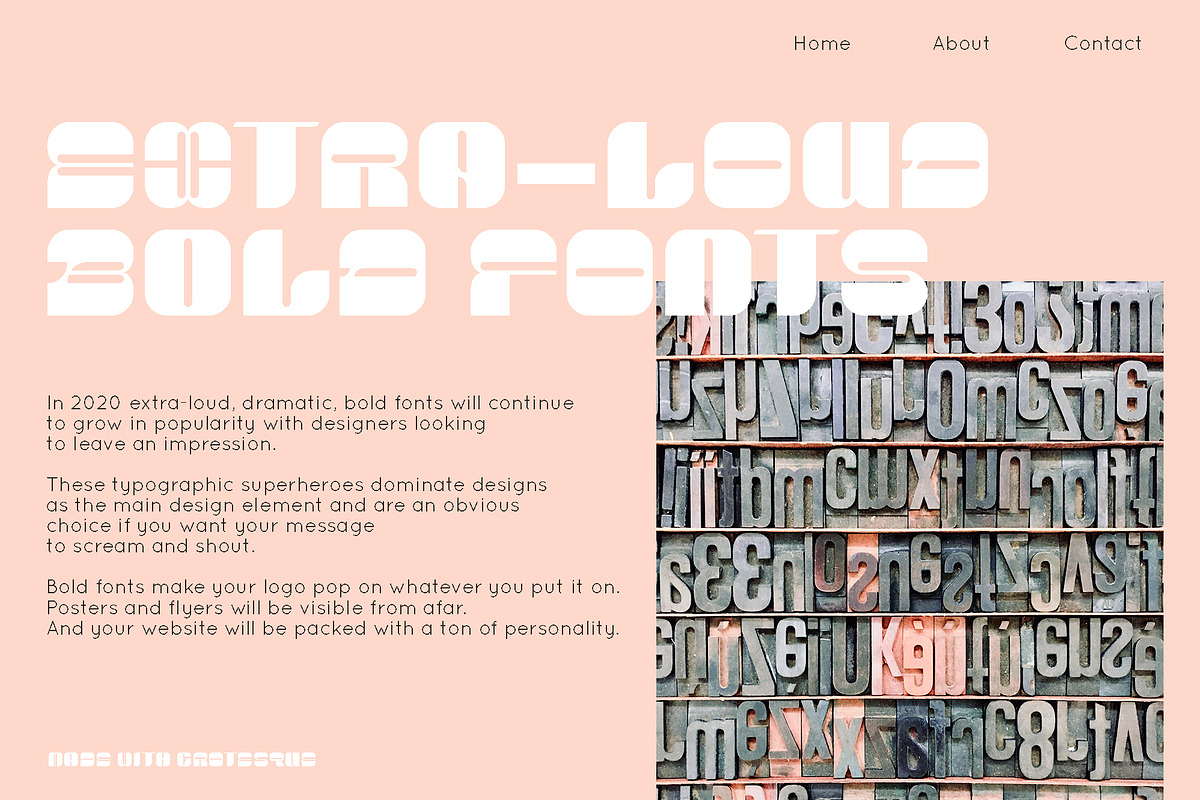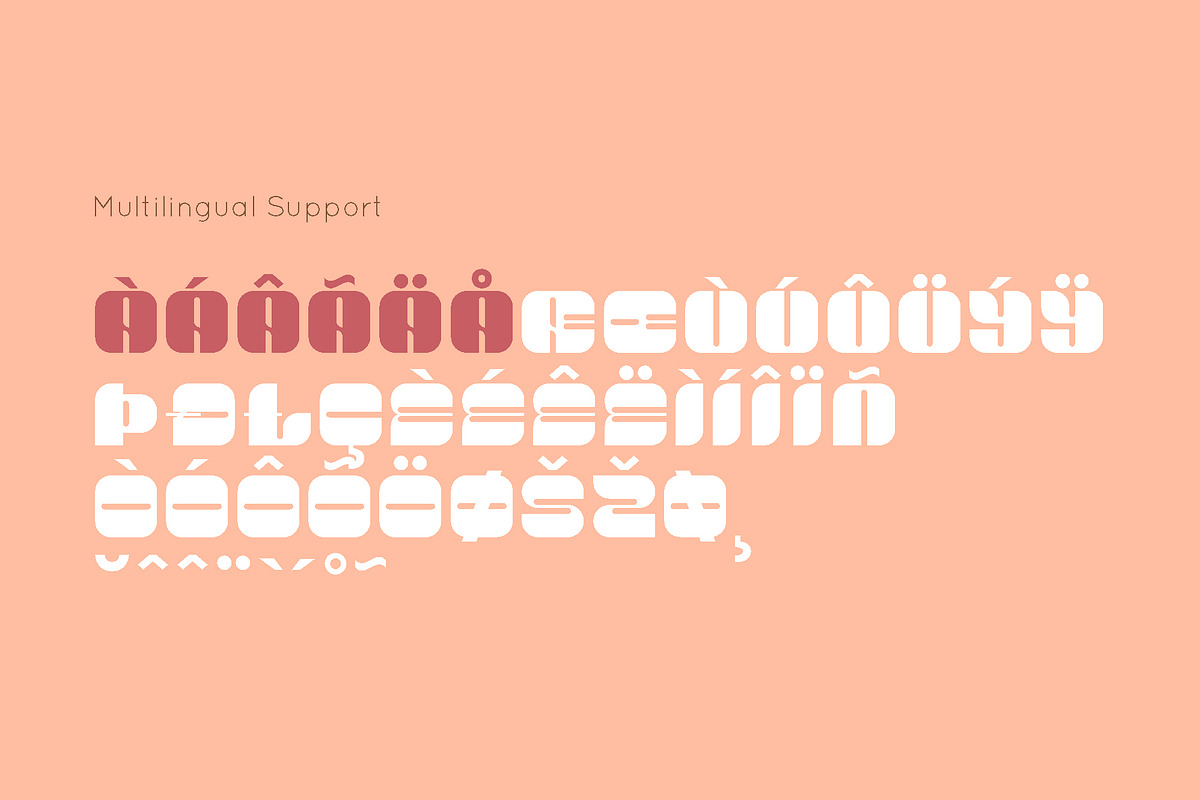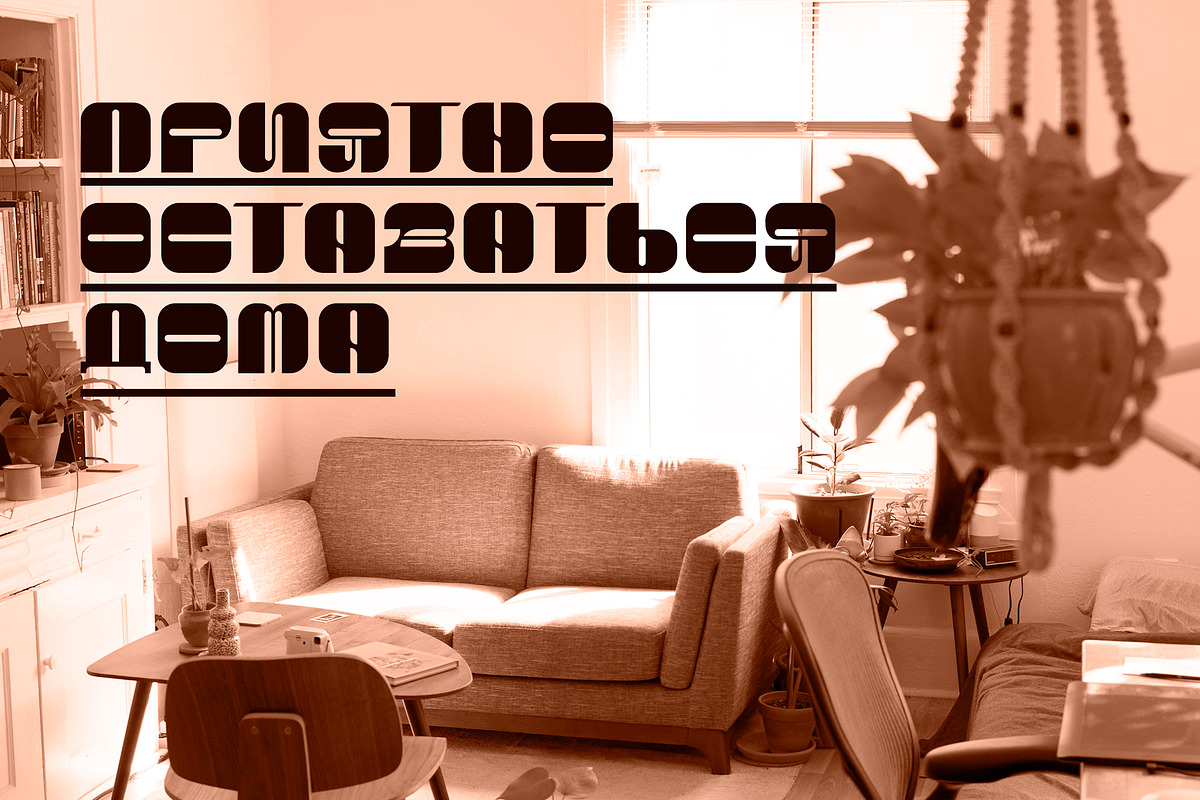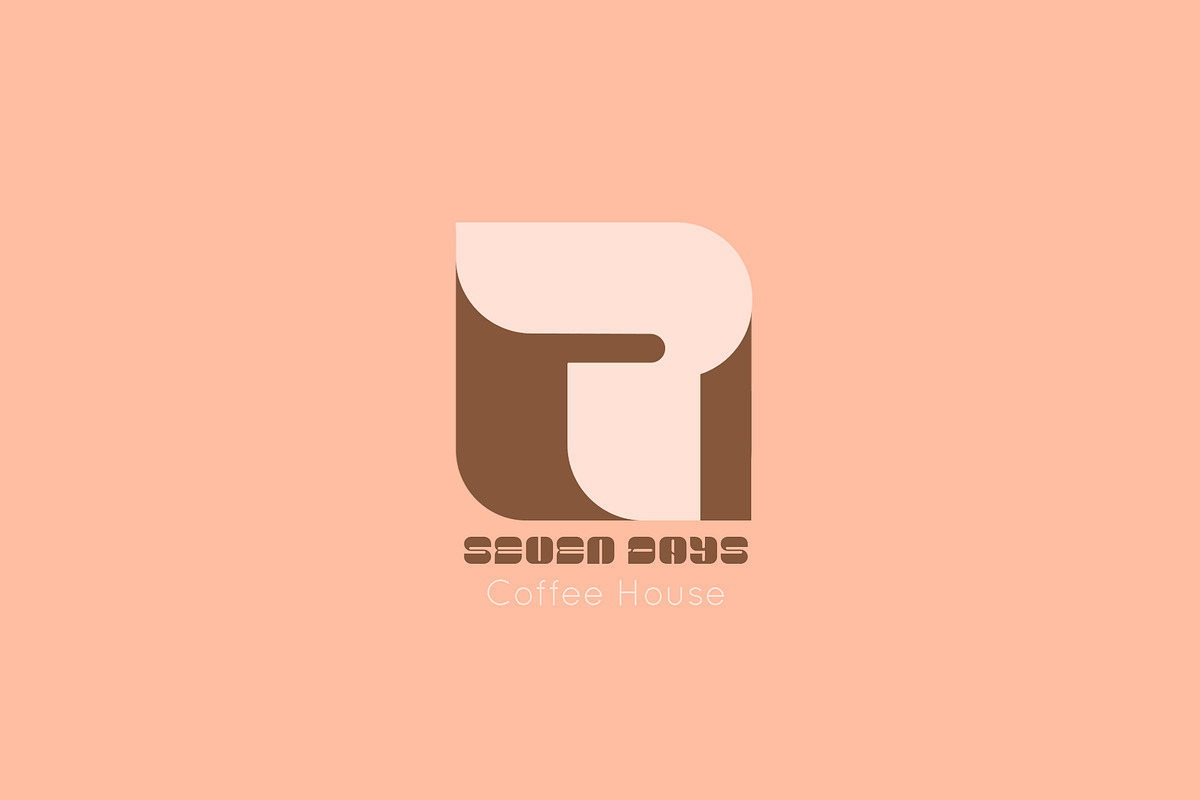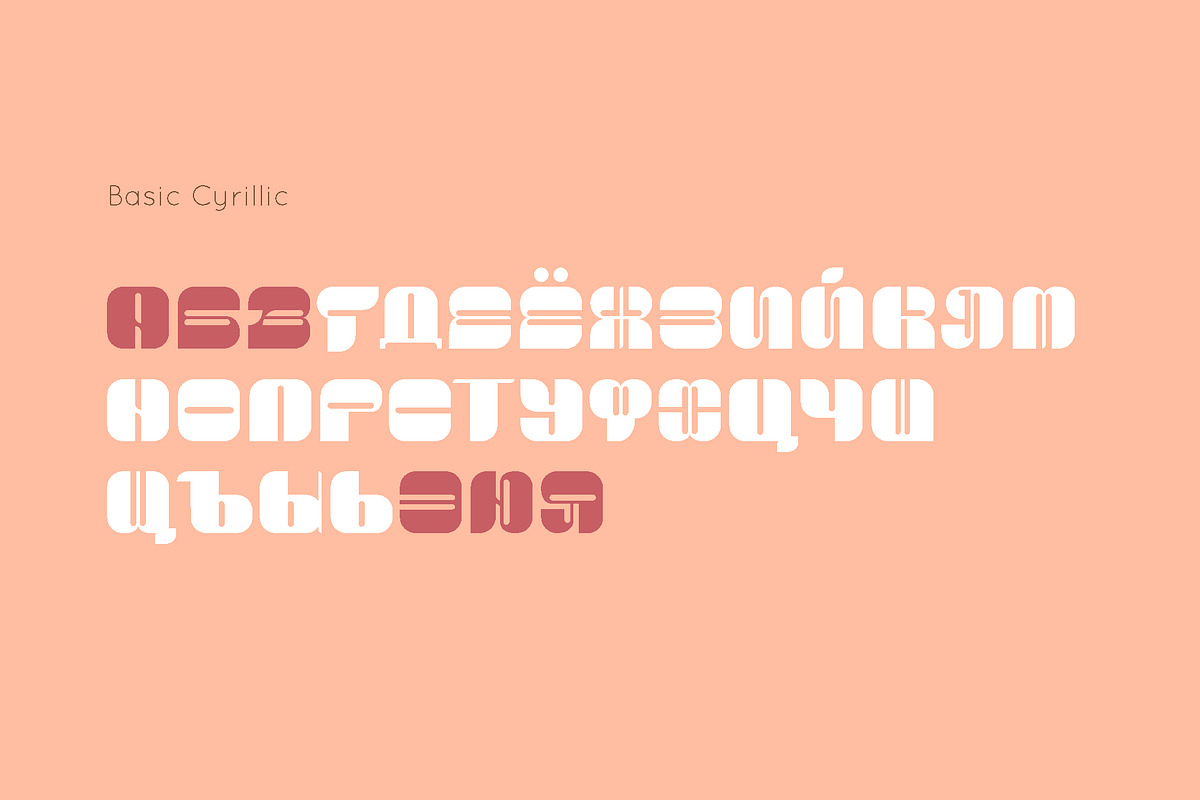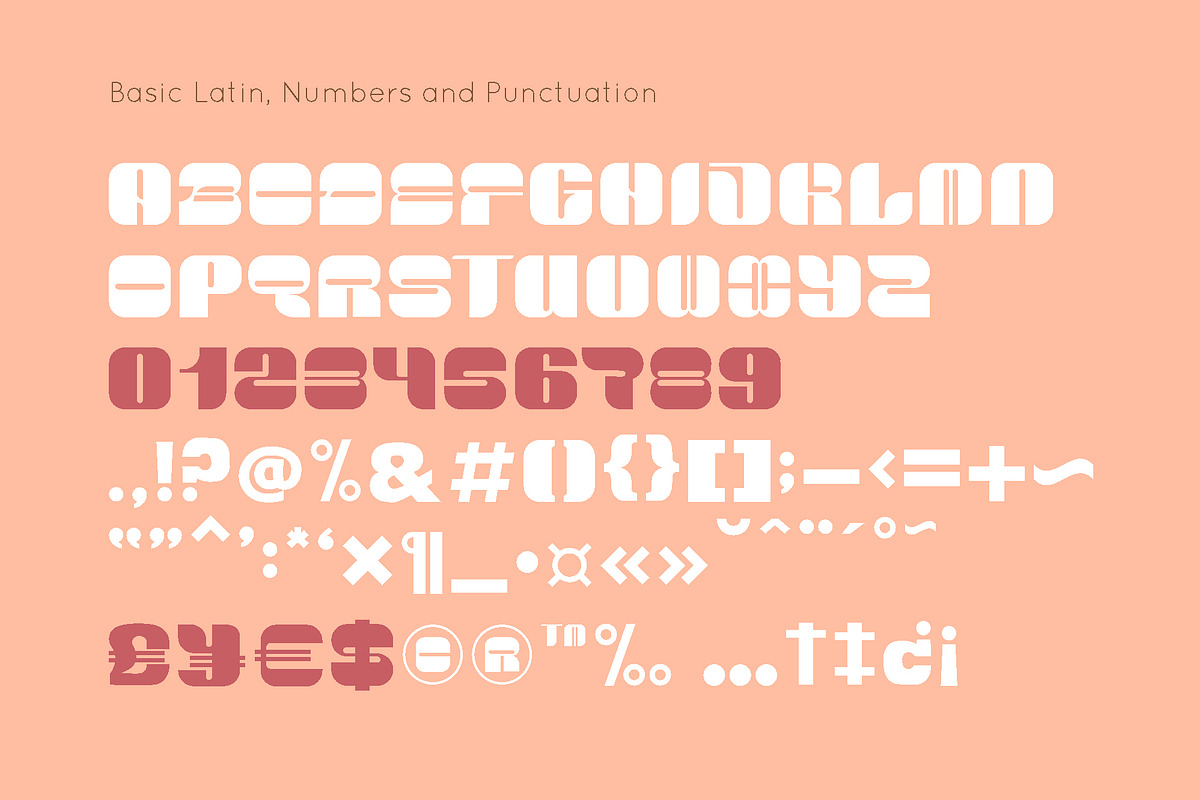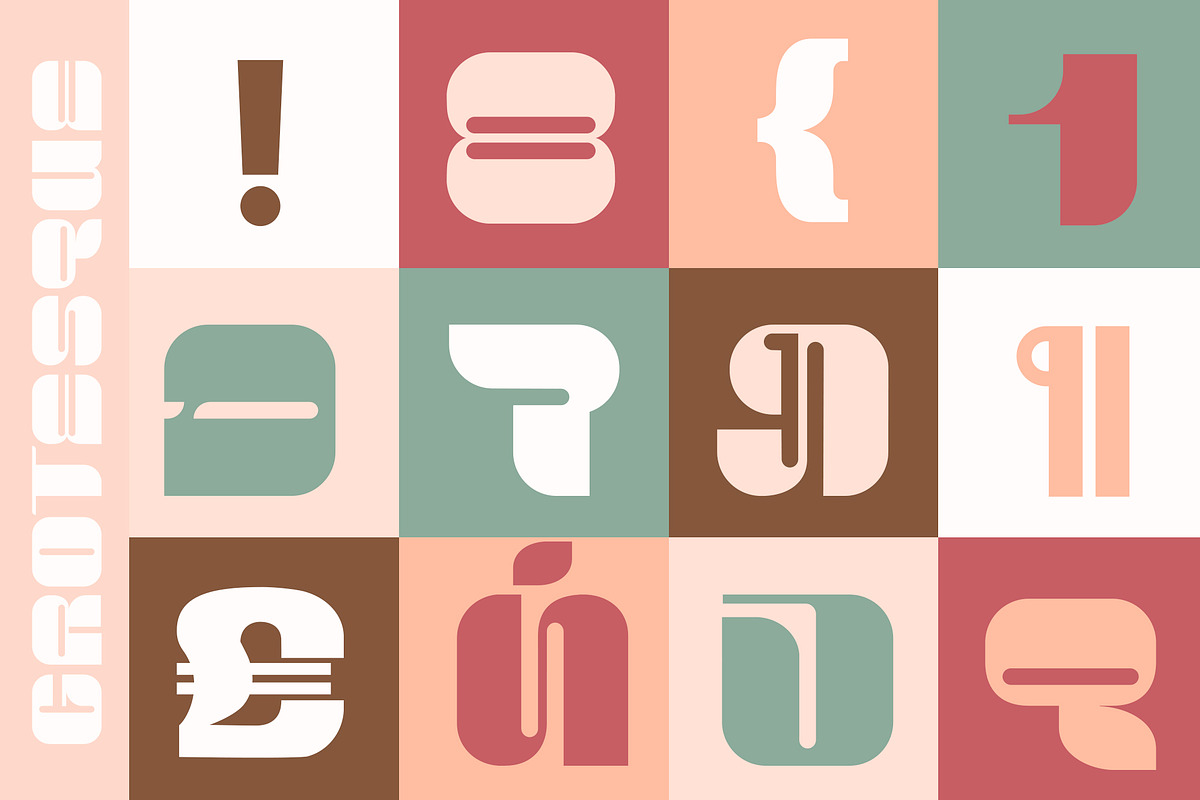
GROTESQUE FONT
GROTESQUE is extra-loud bold universal and modern font. GROTESQUE is perfect for designers looking to leave an impression. The owner of endless possibilities. Typographic superhero. If you want your message to scream and shout, then GROTESQUE is your choice.
It is perfect for multiple contexts. Works great in posters, flyers, logos, headlines, packaging, advertising, branding and so much more. This font will easily help you to create the best urban and dynamic designs. Posters and flyers will be visible from afar with the help of massive letters' shapes.
Every font has basic Latin and Cyrillic letters, numbers & punctuation, multilingual support (French, German, Italian, Norwegian, Portuguese, Spanish, Swedish, Swiss German).
GROTESQUE FONT by Anna Zakharchenko fits naturally into Branding, posters, packaging, typography.